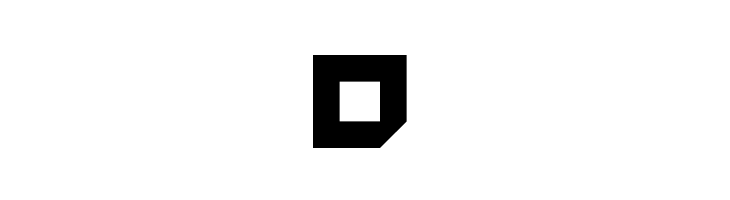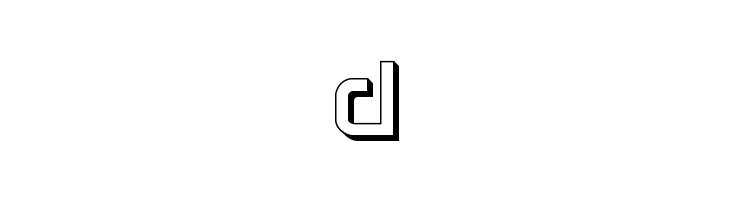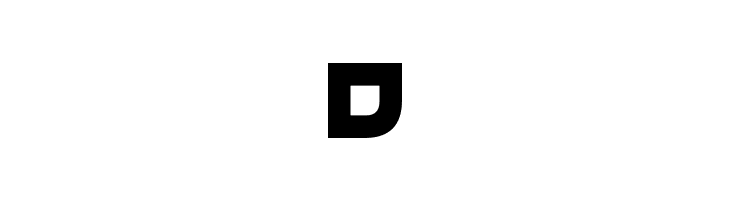
A bold, geometric font with sharp, angular edges and a futuristic style.
A bold, geometric font with a futuristic and edgy design.
A bold, modern font with geometric shapes and strong lines.
A bold, geometric font with uniform stroke width and modern appeal.
A bold, geometric font with tall, narrow letters and enclosed rectangular blocks.
A bold, geometric font with high contrast and a vintage-modern style.
A bold, 3D geometric font with a modern, futuristic style.
A bold, 3D italic font with a modern and dynamic style.
A bold, geometric font with rounded edges and consistent stroke thickness.